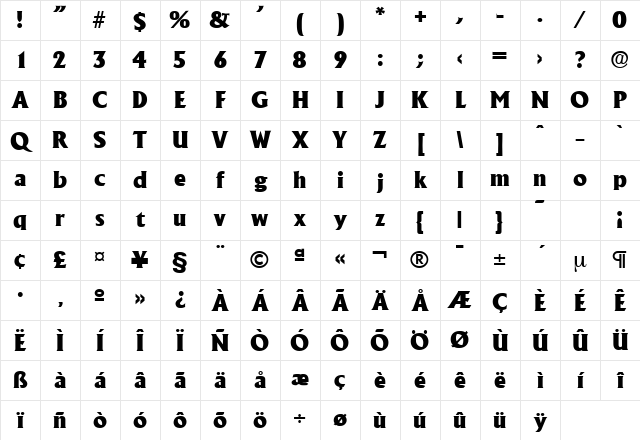
Adelon-Serial-Heavy Regular
Design Context for Adelon-Serial-Heavy
Adelon-Serial-Heavy is a composed and adaptable typeface that performs quietly and consistently across a wide range of design contexts.